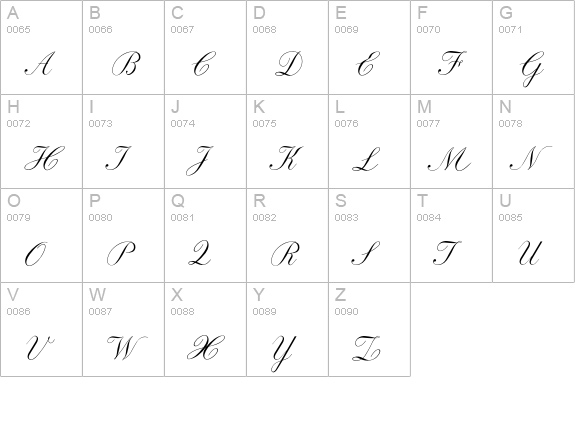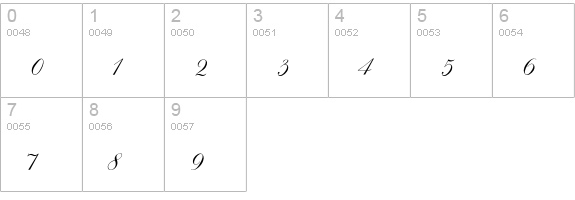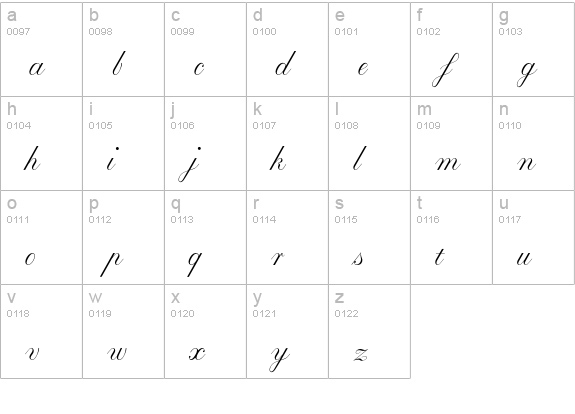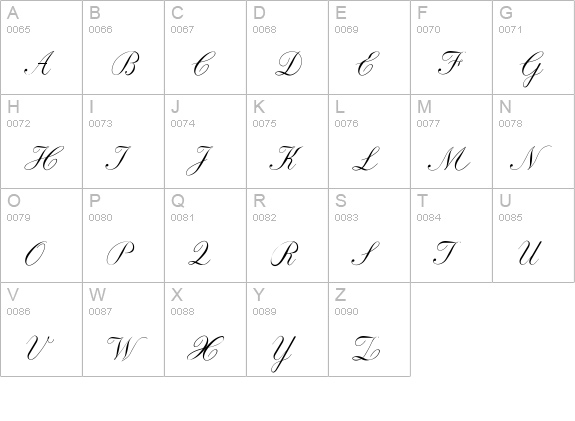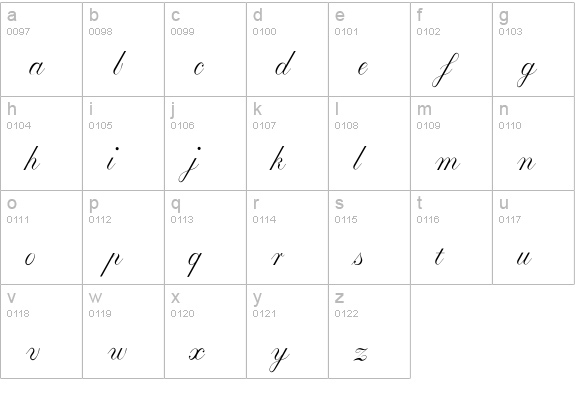
Baronesse Font Details
Baronesse font is a stunning and elegant typeface that exudes sophistication and charm. Its delicate curves and stylish serifs make it perfect for adding a touch of class to any project. This timeless font is versatile and can be used for various design applications, from invitations to branding materials. The Baronesse font is not only visually appealing but also versatile, making it suitable for both formal and creative projects. Whether you are designing wedding invitations, elegant logos, or stylish packaging, this font will elevate your design to the next level. Best of all, Baronesse font is free to download at FontsMarket.com. This means that you can access this premium font without any cost, making it an excellent choice for designers on a budget. Don't miss out on the opportunity to enhance your projects with the beauty of Baronesse font – download it today and add a touch of sophistication to your designs.